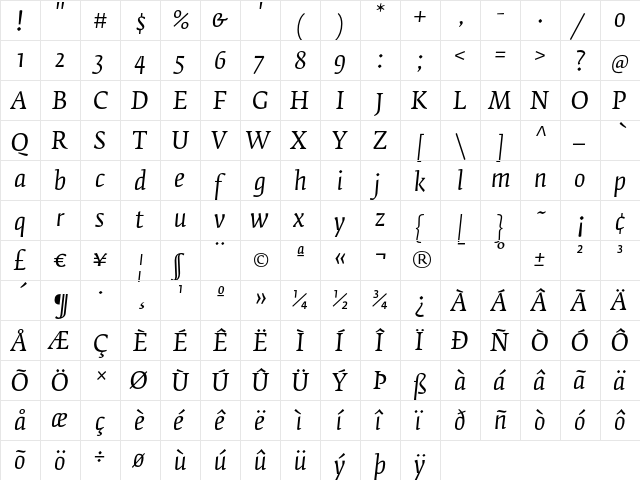
FedraSerifB BookItalic
Design Context for FedraSerifB Typeface
FedraSerifB carries the refined structure of traditional serif typography, with bracketed terminals and considered proportions that communicate credibility and craft. The dynamic lean of this cut emphasises speed and emphasis in any layout.
Pro Tip: Use FedraSerifB for editorial body copy and considered headline work. Pair with a neutral sans for UI elements or captions to create a classic hierarchy.